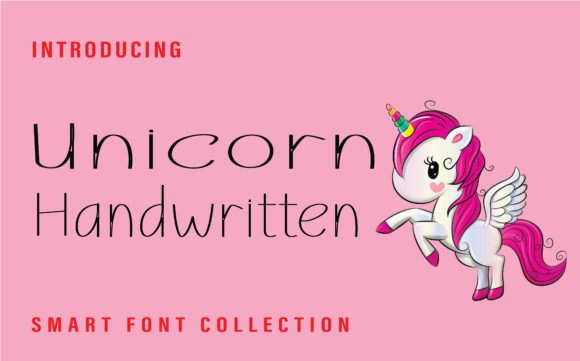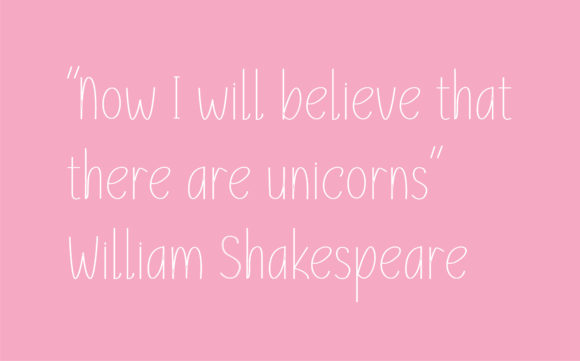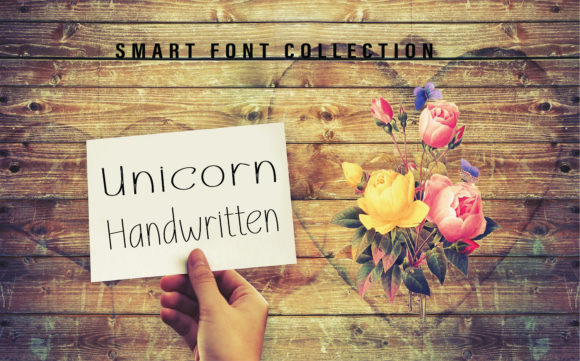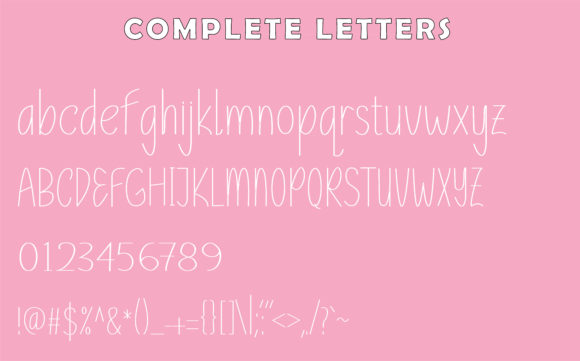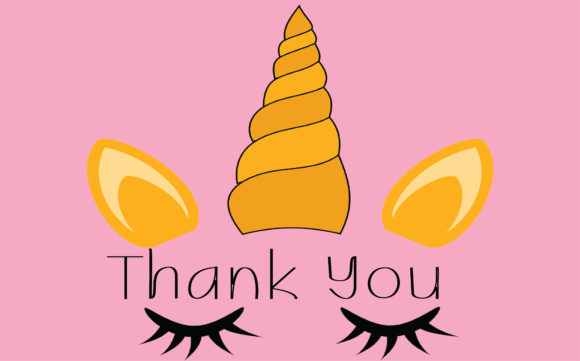
Unicorn Font
About Unicorn Font
Unicorn Handwritten is a cute, sweet and friendly handwritten font. Its natural and unique style makes it incredibly fitting to a large pool of designs. The only limit is your imagination.